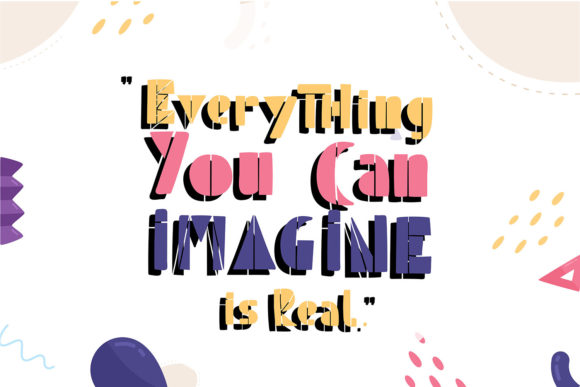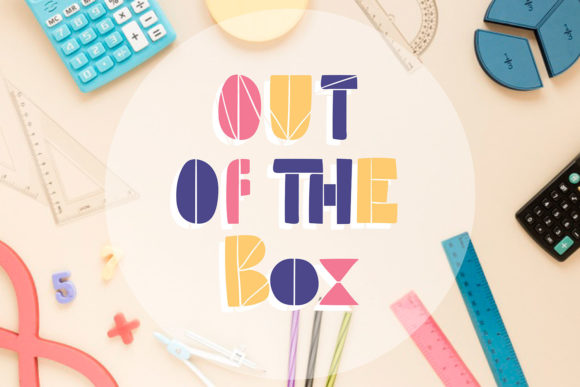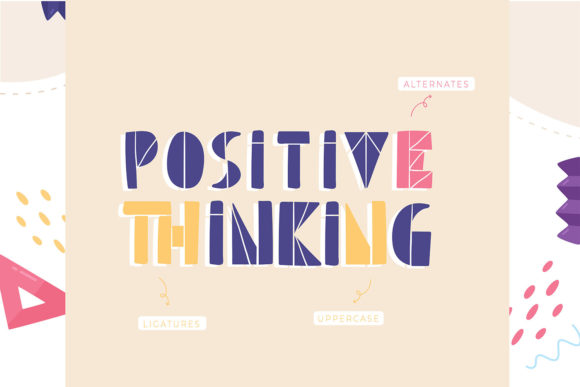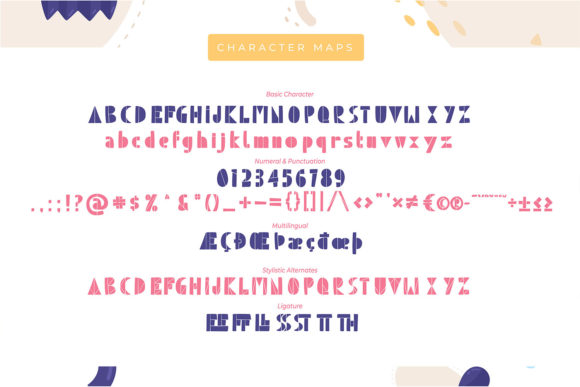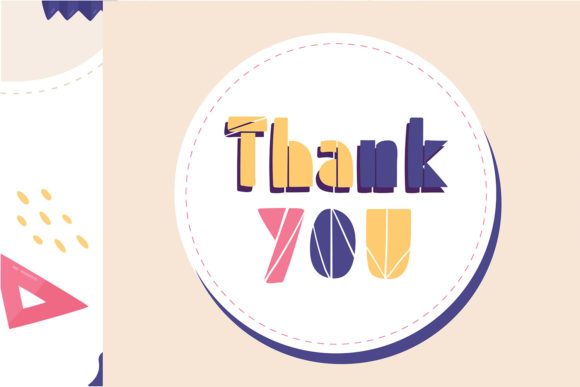
Introduction to Kalvert Font
Have you ever stumbled upon the perfect font while working on a creative project, only to realize it’s exactly what was missing to bring your design to life? For designers, that ‘aha’ moment is what makes all the hard work worth it. It happened to me when I discovered the Kalvert Font – a cool and cartoon-like display font that screams fun and playfulness.
Perfect for children-themed designs, Kalvert Font is a high-quality design resource that’s sure to add a pop of personality to any project. With its transparent background and free download option, it’s a valuable addition to any designer’s toolkit. Whether you’re working on a children’s book, a website, or a social media campaign, Kalvert Font is a great choice for those looking to add a touch of whimsy and creativity to their designs.
As a design enthusiast, I can attest to the value of having a versatile and high-quality font like Kalvert Font at your disposal. It’s a game-changer for any creative project, and I’m excited to share more about this amazing font with you.
Key Features of Kalvert Font
- High-quality, unique design with a transparent background, perfect for creative projects.
- Unique characteristics include a modern, clean aesthetic and a wide range of font styles, from bold to italic.
- Designed to be versatile and adaptable, the Kalvert Font is perfect for use in logos, headings, and body text.
Honest Review: Kalvert Font
I recently had the chance to work with the Kalvert Font, and I must say it’s been a game-changer for my creative projects. This high-quality font is perfect for any design resource looking to add a touch of sophistication and elegance to their work.
One of the standout features of the Kalvert Font is its transparent background, which makes it incredibly versatile and easy to use. I’ve used it for everything from logos to brochures, and it always looks professional and polished.
- Perfect for logos, brochures, and other design materials
- Some users may find the font a bit too ornate for certain designs
Overall, I’m really impressed with the Kalvert Font and would highly recommend it to any designer looking for a high-quality, versatile font for their creative projects.
Use Kalvert Font to add a touch of elegance to your designs.
Common Use Cases for Kalvert Font
Kalvert Font is perfect for:
Business cards and marketing materials
Photography captions and overlays